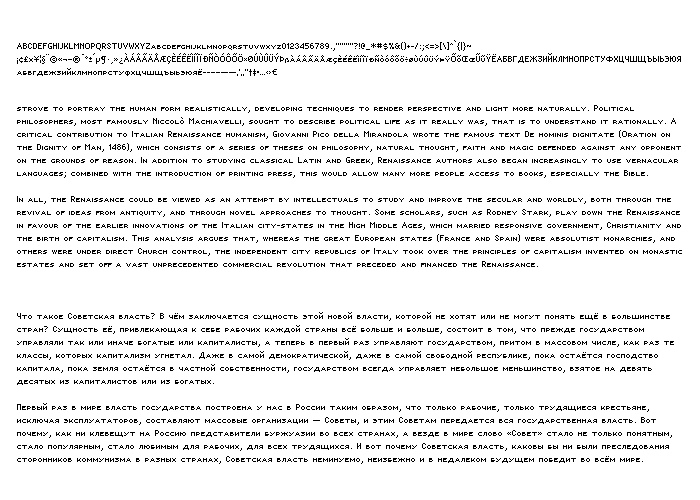
This is a supplement for Miranda Pixel Sans - Small Caps for OpenType format.
Character set and (English and Russian) sample text. Caps height: 6px, x-height: 4px, descenders 2px, diacritical marks: 3px, Total vertical dimension: 11px. Letter width: 1-8px. Spacing: 1px. Some kerning necessary.
Character set magnified.